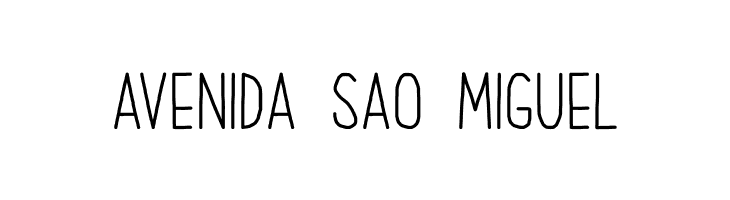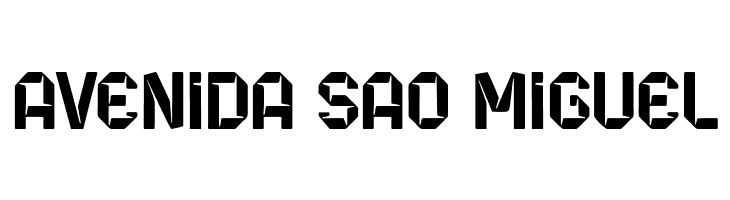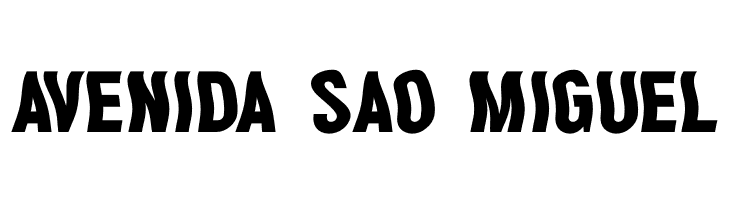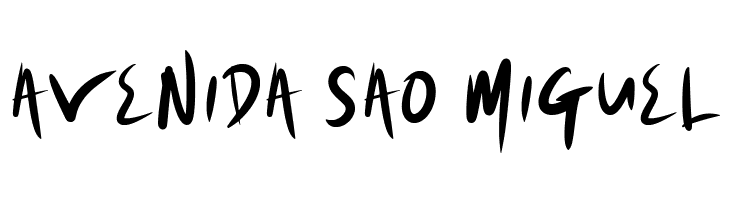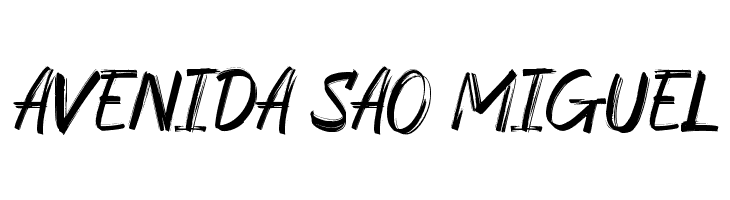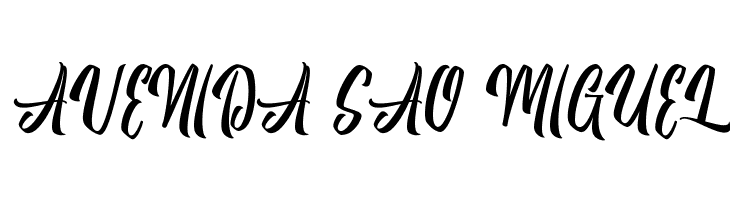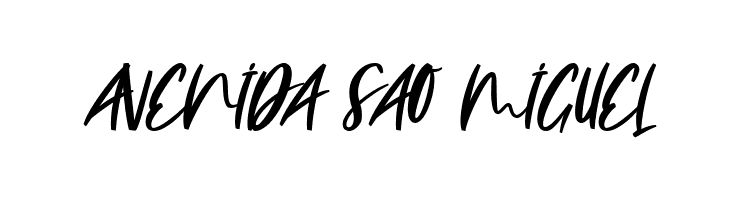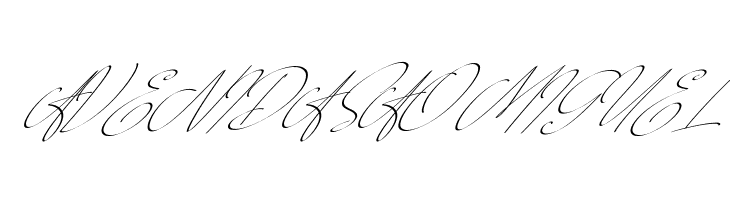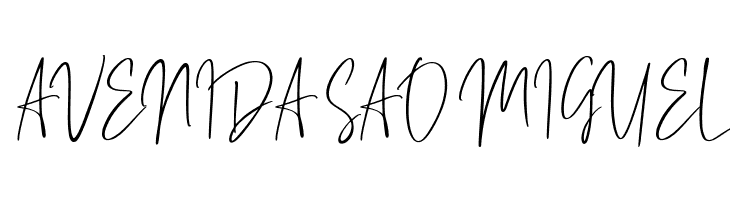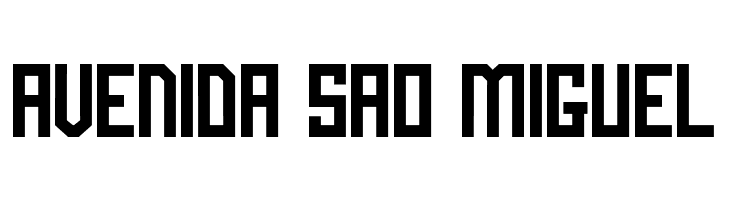
A geometric and futuristic font with blocky, angular letterforms.
A bold, geometric font with an origami-inspired design and sharp angles.
A graceful, cursive font with elegant, flowing strokes.
A bold, handwritten-style font with dynamic and fluid strokes.
A playful, bold handwritten font with thick strokes and rounded shapes.
A bold, brush-style font with dynamic, hand-drawn strokes.
A bold, three-dimensional font with a modern, industrial style.
A bold, distressed font with an eroded, industrial look.
A geometric, hollow font with a modern and futuristic design.
A bold, expressive handwritten font with fluid strokes.
A bold, cursive script font with fluid strokes and a lively appearance.
A bold, dynamic script font with a playful and energetic style.
A modern sans-serif font with a clean and balanced design.
A bold, playful font with rounded edges and a slightly condensed form.
A bold, rounded font with a playful and friendly style.
A dynamic, handwritten-style font with expressive, fluid characters.
A sophisticated, elegant script font with fluid, cursive handwriting style.
A bold, expressive script font with dynamic flow and elegant curves.
A lively and expressive handwritten font with fluid, cursive letterforms.
A lively, cursive font with fluid strokes and playful character design.
A cursive, handwritten-style font with elegant, flowing characters.
A charming, handwritten font with a playful and casual feel.
A playful handwritten font with tall, narrow letters and a casual style.
A playful and artistic script font with dynamic strokes and whimsical flair.
A bold, energetic script font with a handwritten, cursive style.
A bold, rounded, geometric font with a modern and futuristic style.
A dynamic and expressive handwritten font with fluid strokes and playful curves.
An elegant, flowing script font with a natural handwritten style.
A delicate, flowing script font with elegant swashes and smooth curves.
A bold, geometric font with a modern, angular design.
Casual handwritten script font.
A bold, dynamic font with a slightly condensed and energetic style.
A bold, playful font with continuous, flowing lines and rounded characters.
A modern, hollow font with a continuous line design, perfect for creative projects.
A modern, hollow inverse font with smooth, rounded lines and a futuristic style.